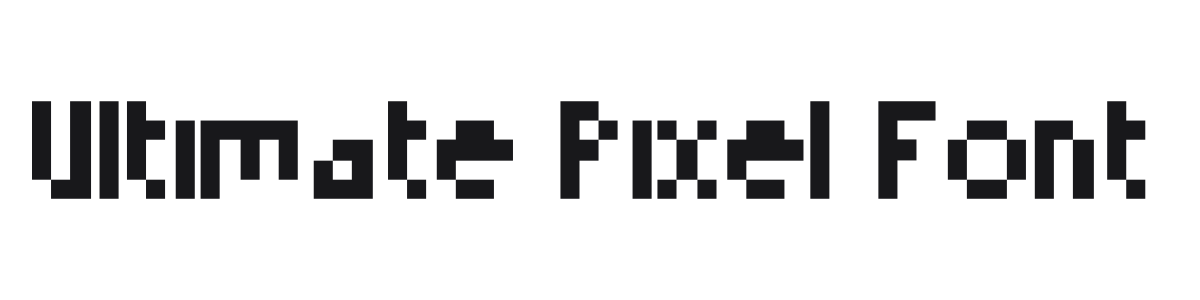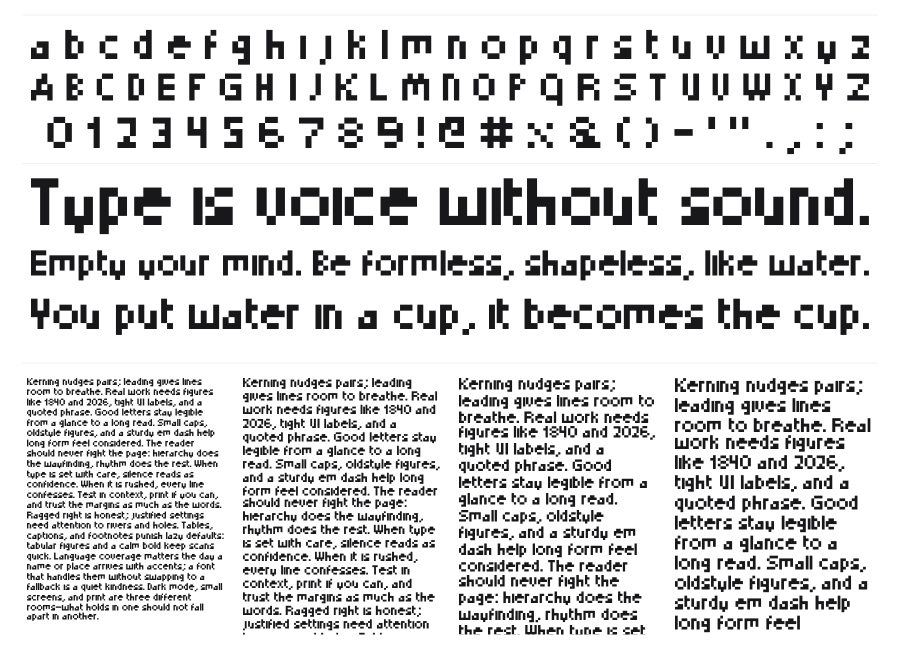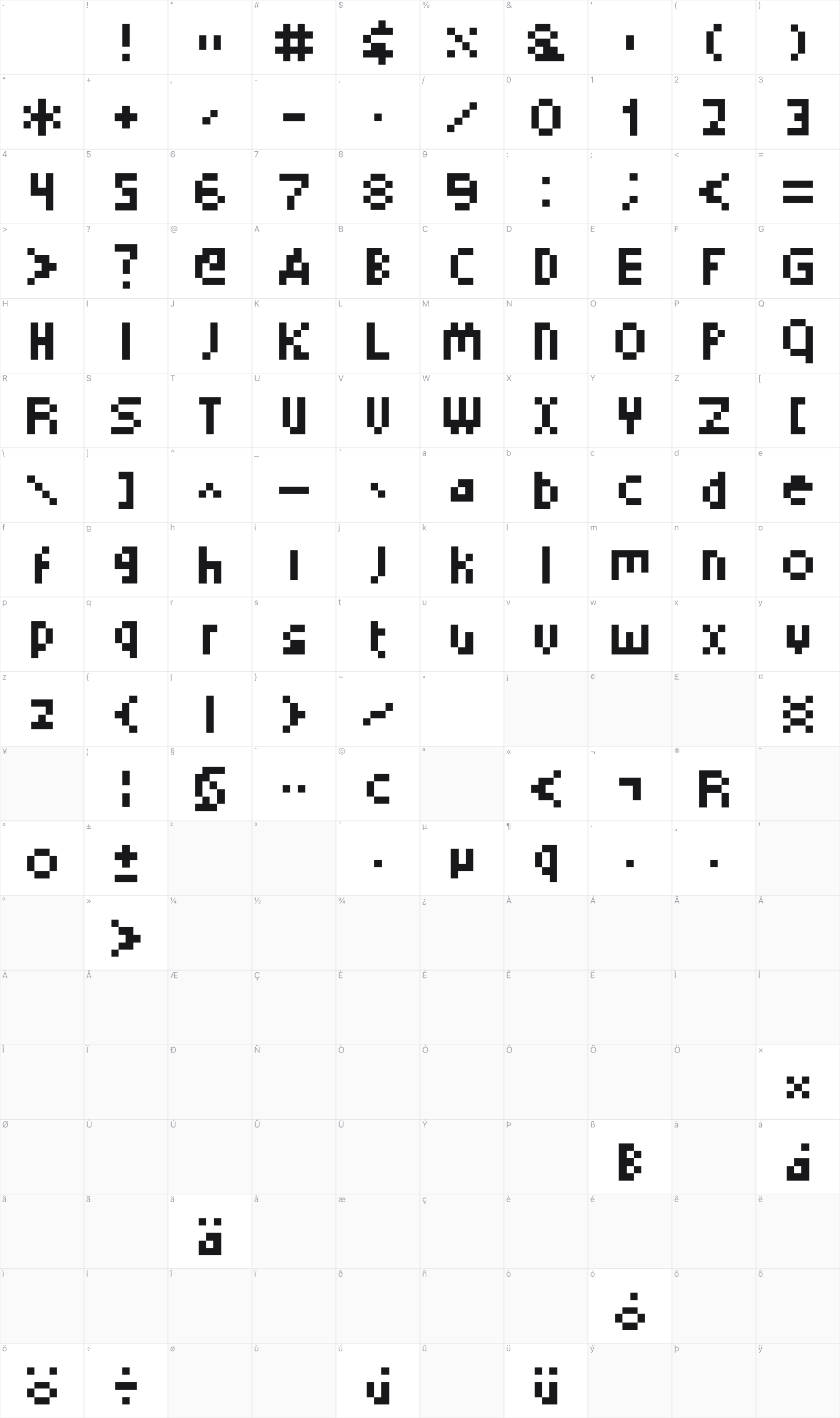
Ultimate Pixel Font
Ultimate Pixel Font is a bold, grid-based pixel typeface where every character is built from square blocks on a minimal 4x5 pixel grid. It captures the visual language of LED dot-matrix signs, arcade screens, and scrolling transit tickers with no curves or diagonals anywhere. As a vector font it scales cleanly to any size, making it equally at home on a massive poster and a small digital display.